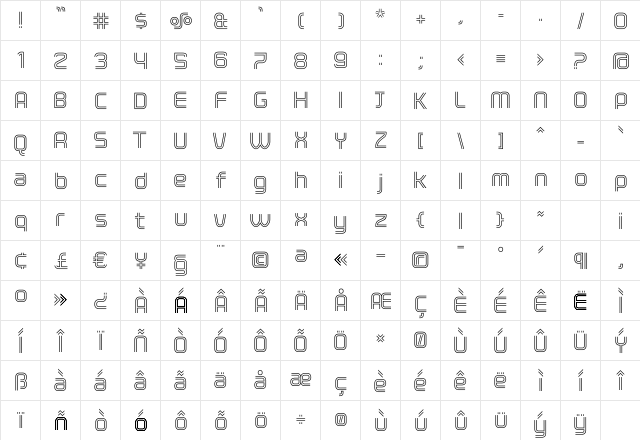
ClickRegular Regular
Design Context for ClickRegular Typeface
ClickRegular is a composed and adaptable typeface that performs quietly and consistently across a wide range of design contexts.